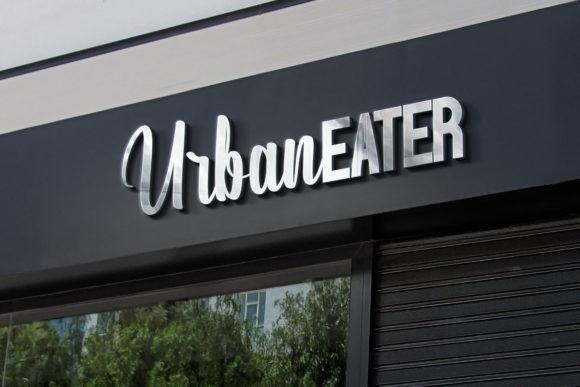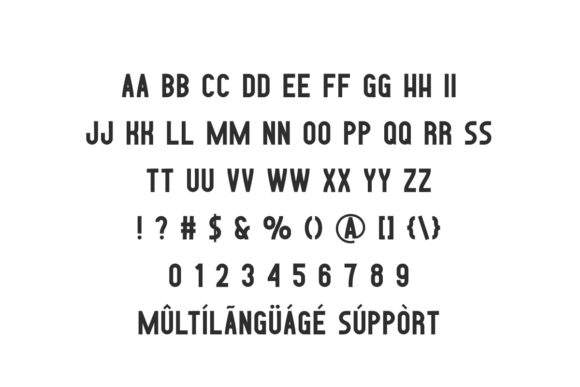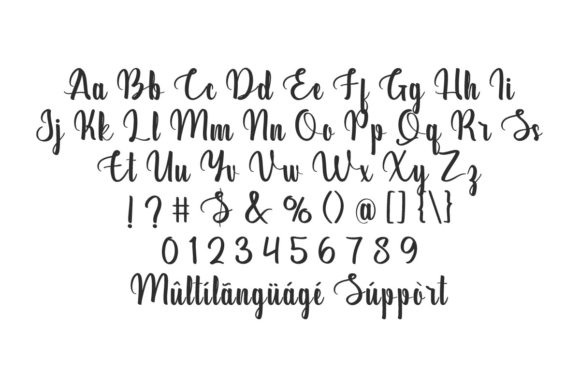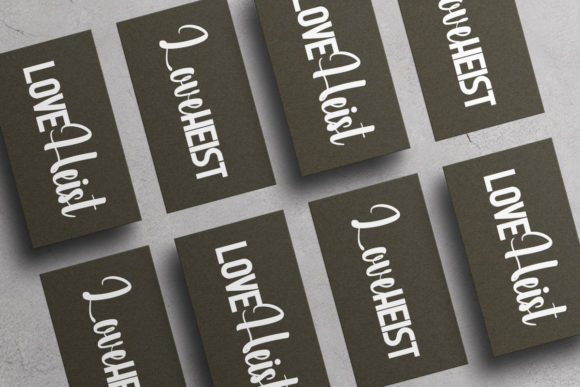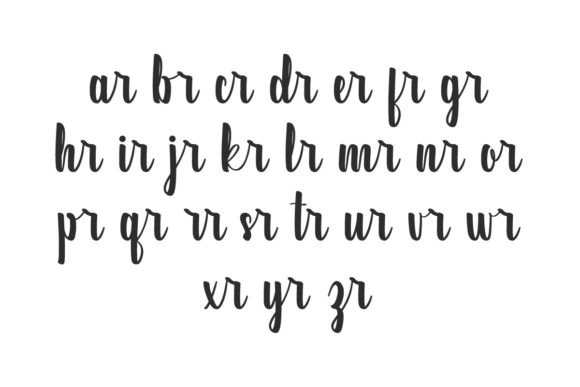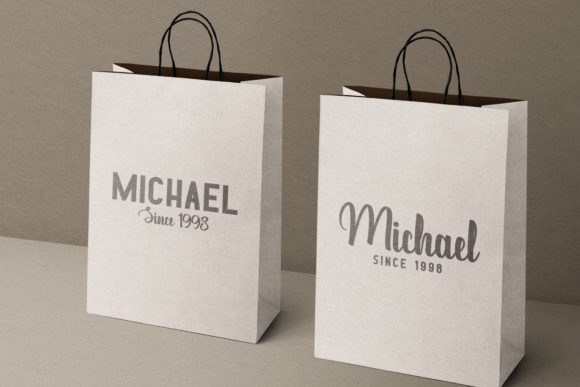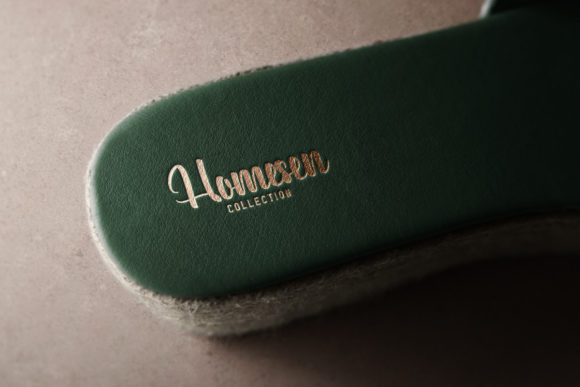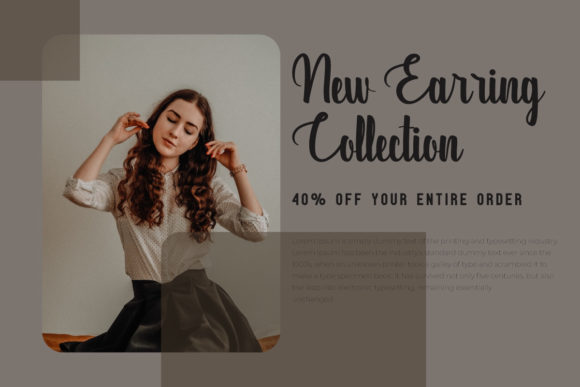
Love Heist Font
Love Heist is a delightful font duo, featuring two complementary typefaces designed to work seamlessly together or stand alone, offering a versatile and chic option for a variety of creative projects. The fonts are thoughtfully crafted to add a chic and cheery touch to your crafts, making them perfect for a range of applications.
The use of two fonts in Love Heist allows for dynamic design options, enabling you to create distinctive typographic compositions. The fonts are designed to complement each other perfectly, offering a harmonious pairing that adds depth and visual interest to your projects.
The inclusion of PUA encoding is a valuable feature, making it easy to access all glyphs and swashes. This enhances the fonts’ flexibility, providing you with the tools to customize and personalize your designs effortlessly. The ability to access a variety of glyphs and swashes opens up creative possibilities, allowing you to tailor the fonts to suit your specific design needs.
In summary, Love Heist is more than just a font duo; it’s a chic and versatile typographic solution for your creative endeavors. Whether you use them together or separately, these fonts bring a cheery and stylish touch to your crafts. With PUA encoding, Love Heist offers accessibility and customization options that make it a valuable asset for adding charm and character to your designs.